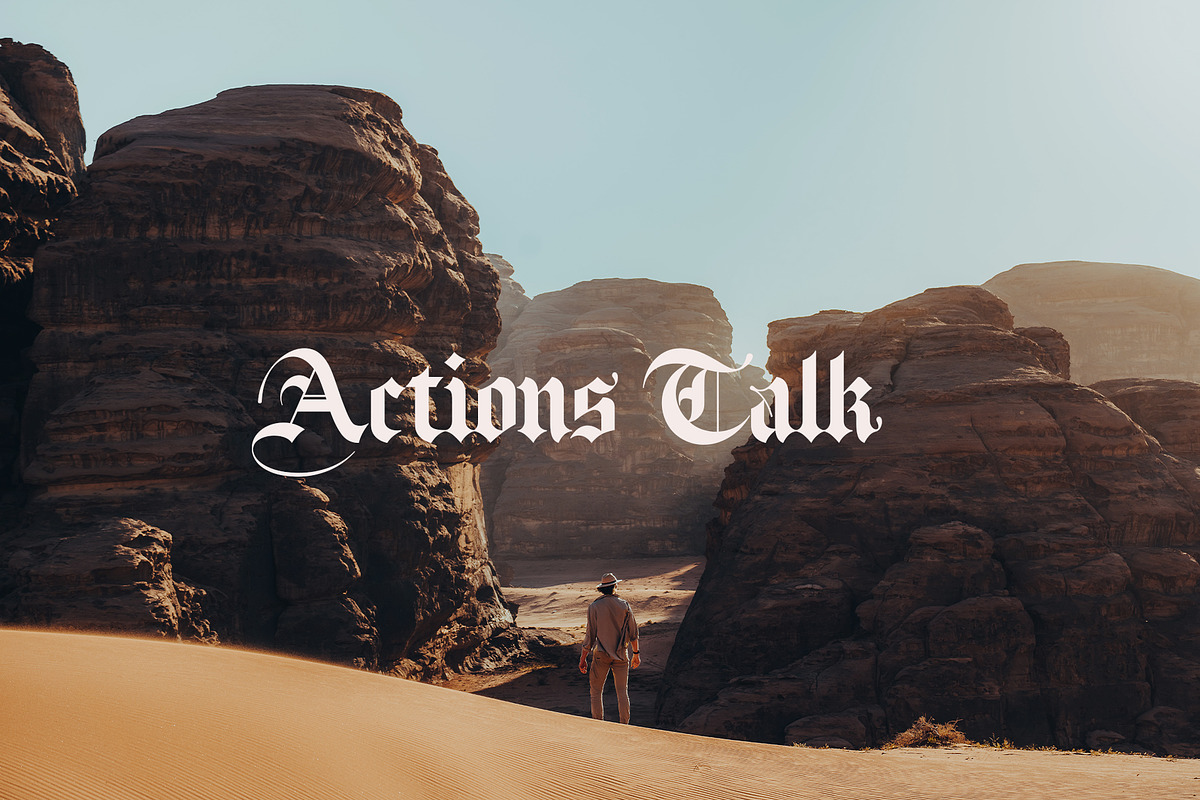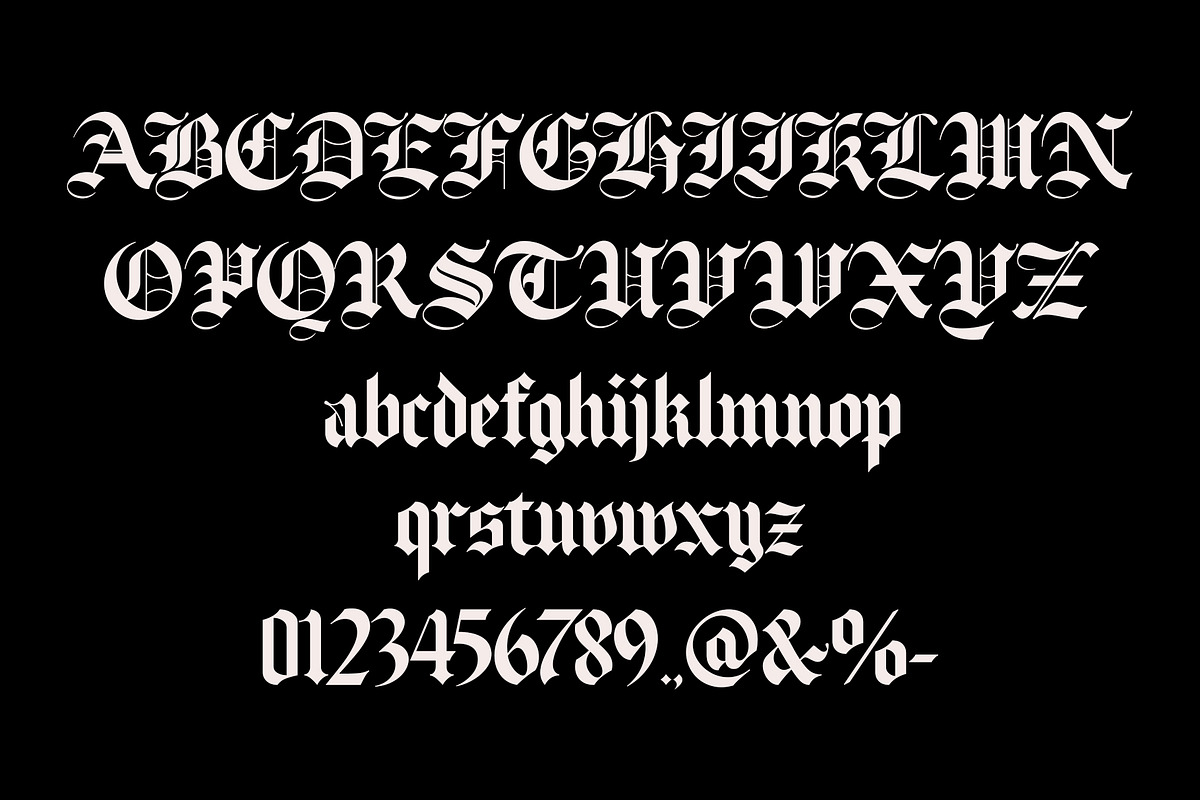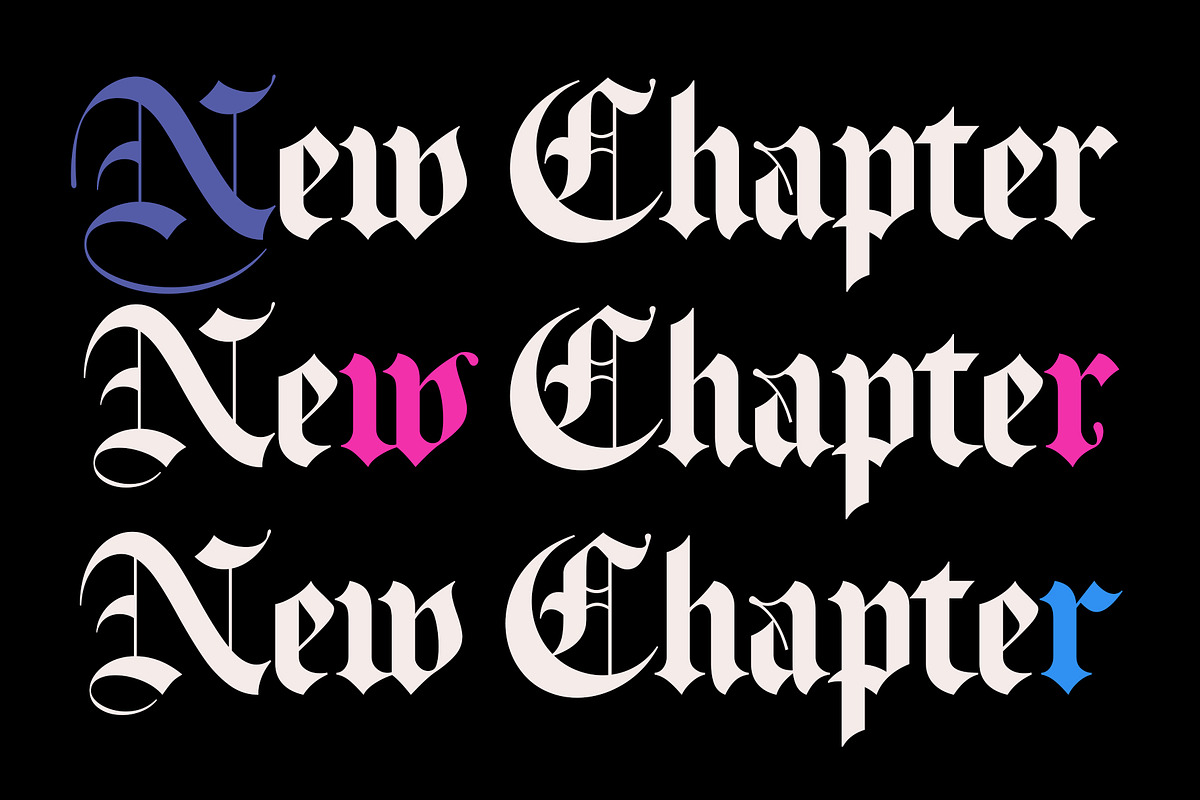
Fairville is a blackletter font with a textura – old English style that displays a classic look. Apart from that, this font also has a stylistic set feature which makes the appearance of this font more attractive, and also other features such as ligatures and multi-language support which can perfect your designs with this font.
This font is perfect for your design needs such as poster design, logo design, branding, apparel, book, magazine, etc.